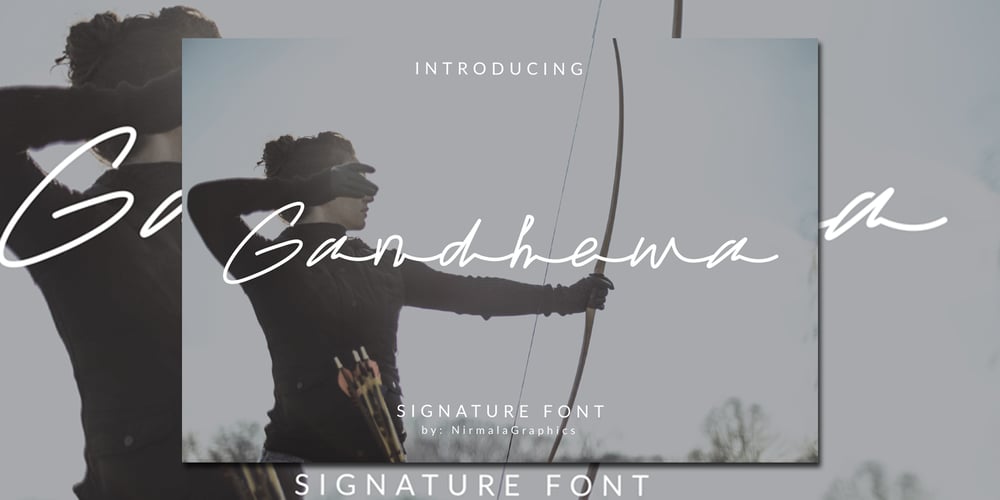
Gandhewa Font Family was designed by Andrea Zudip Aggasi and published by Nirmalagraphics. Gandhewa contains 2 styles and family package options. Gandhewa is a font that I made in handwriting style. This font is inspired by my grandfather’s writings. I made Gandhewa in a few steps that were long enough to finally become a beautiful font. Starting from rough sketches on paper using a ballpoint pen, I then redrawn and arranged the characters in the font creator. If you are looking for a natural, clean signature font, Gandhewa is perfect for you. Gandhewa is also equipped with 17 ligature and has multi-lingual support.